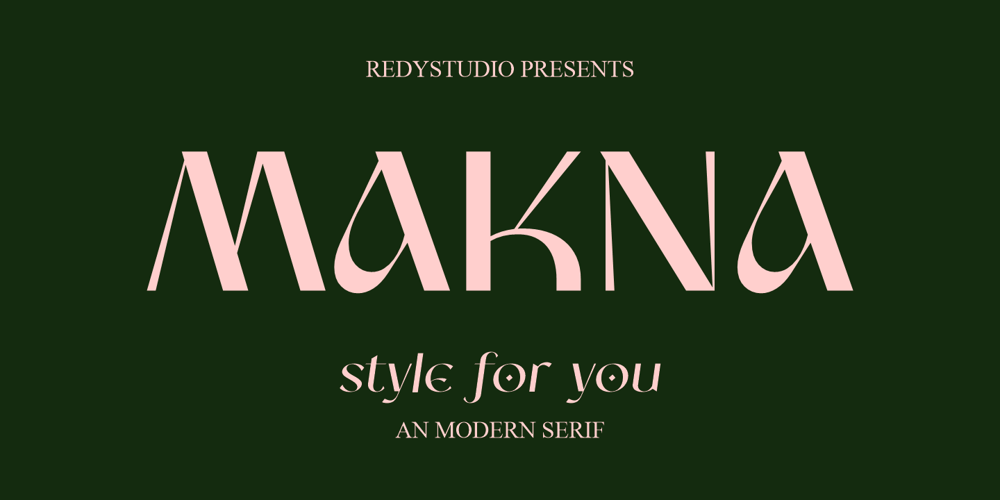
Makna Font Family was designed by Nurul Fajri Redy and published by Redy Studio. Makna contains 2 styles and family package options. Makna, a stylish modern serif typeface, capturing the essence of contemporary design while sophistication of serifs, offering not just one but two distinct styles: Regular and Italic. Makna stands out with its diverse set of alternate letters which makes it even more charming, giving everyone with the opportunity to enchance their creativity. Using it in a wide range of applications, including logos, posters, websites, and more.Thank you for checking out Paramour! I hope you find it enjoyable, and feel free to give it a try below!